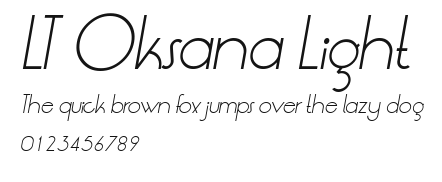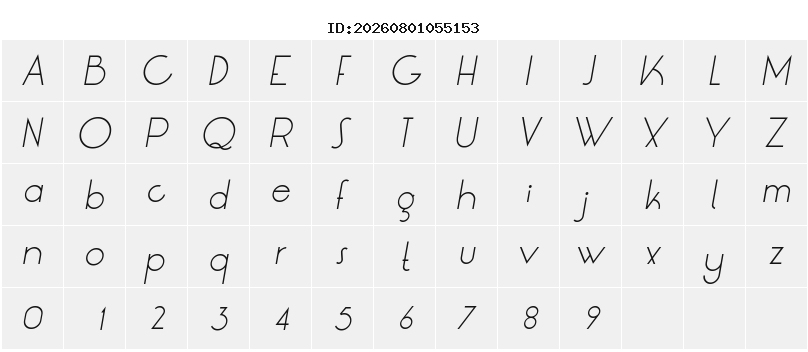
• Font Name: LT Oksana Light
• Designer: Lauren Thompson
• Description: Original geometric design by Lauren Thompson, of Nymphont first created in 2008. The "deco" midlines and unconventional dotted letter positions as well as the almost vertical slant of the 's' give this font what has been described as a "retro" theme and add to the uniqueness of the typeface. Version 3.00 release comes with updated kerning and the addition of several characters.
LT Oksana Light.ttf is a modern, elegant sans-serif font designed for ultimate readability and visual harmony. Perfect for branding, headlines, web design, and print materials.